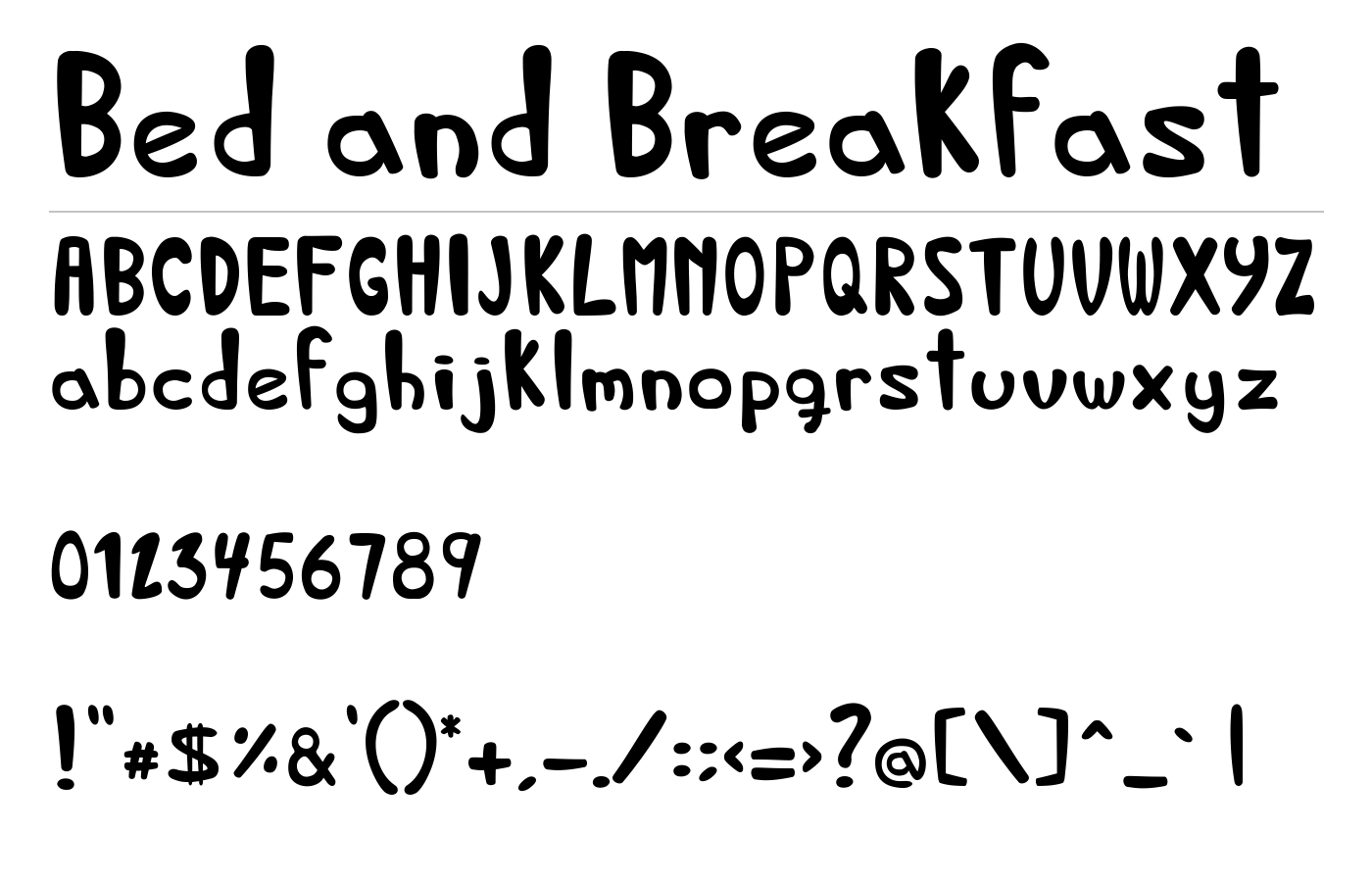
Bed and Breakfast is a playful, rounded sans serif font with a hand-drawn, casual feel. Its moderately wide characters and slightly irregular shapes bring warmth and friendliness, making it ideal for informal branding, children’s materials, or cozy lifestyle projects. This font works best in headlines and short texts where a personal, approachable vibe is desired.
Bed and Breakfast Font
About Bed and Breakfast Font
| Font family | Bed and Breakfast Font |
| Designer | Javier Ugarte del Corro |